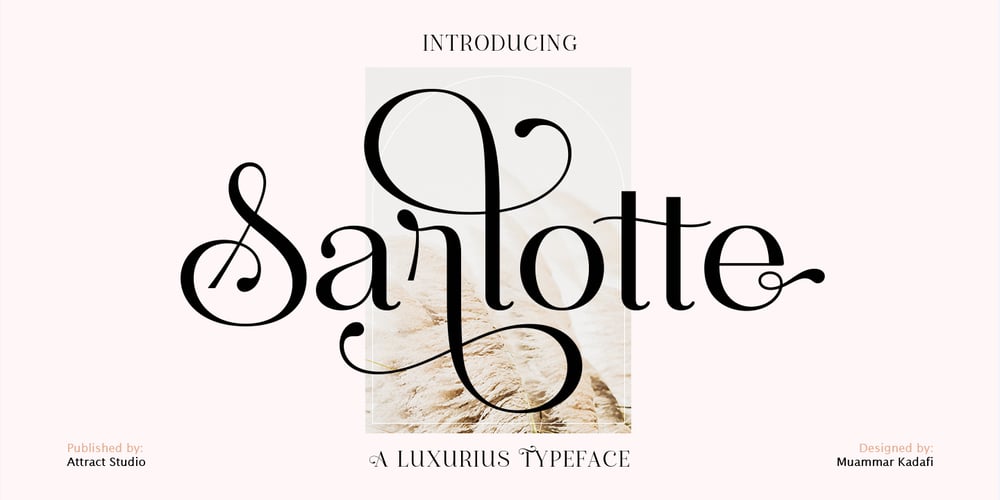
Sarlotte Font Family was designed by Muammar Kadafi and published by Attract Studio. Sarlotte contains 4 styles and family package options. Sarlotte is a luxurious serif with an elegant style. It seduces your eyes with its curves yet still manages to maintain its classy serenity, it’s perfect for branding, logos, invitations, long texts, and many more of your other needs. Sarlotte Features: Multilanguange PUA Encoded Alternates Ligatures. To be able to access alternative fonts, make sure the software you use can support opentype features such as Microsoft Word, Paint, Adobe, Corel draw, Cricut and other applications. If you need help, please contact me :)Check out Holen Vintage which is a great pair for Sarlotte.